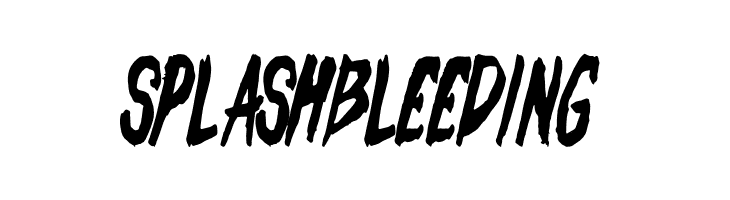
A bold, geometric font inspired by the ancient Younger Futhark runes.
Outlined, hand gesture-based font inspired by sign language.
A modern, double-line stroke font with a geometric and hollow design.
A bold, distressed font with a vintage, stamp-like texture.
A bold, hand-painted style font with rough, textured edges and dynamic strokes.
A bold, angular font with geometric uppercase letters, perfect for striking headlines.
A playful, heart-accented font with bold, rounded characters.
A bold, modern font with sharp edges and smooth curves, perfect for striking designs.
A bold, outlined font with a modern, geometric style.
A playful, decorative script font with a rough, handcrafted texture.